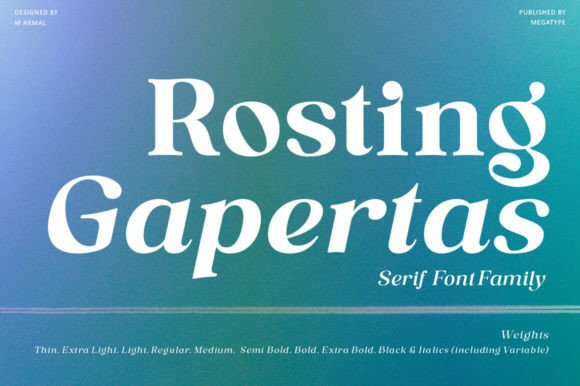
Unleash the Timeless Appeal of Rosting Gapertas: A Serif Masterpiece for Brand Logos
Step into the realm of sophisticated typography with Rosting Gapertas, a captivating serif font family that exudes elegance and strength. Inspired by the golden era of serif typefaces from the 70s and 80s, Rosting Gapertas reimagines the past with a modern twist. Embrace the beauty of nostalgia while embracing the allure of contemporary design.
Crafted by the skilled hands of Megatype, Rosting Gapertas embodies the perfect balance between retro charm and modern appeal. Its soft and graceful curves blend seamlessly with sturdy serifs, creating a visual symphony that commands attention. This font family is not just a collection of letters; it's an exquisite tool that empowers you to convey emotions, tell stories, and forge connections with your audience.
With nine distinct weights ranging from Thin to Black, Rosting Gapertas offers a versatile palette of typographic colors. Each weight carries its own unique personality, allowing you to tailor your designs to perfection. Lighter weights dance gracefully across body text, inviting your readers to immerse themselves in your words. Heavier weights make a bold statement in high-impact titles, leaving an unforgettable impression on your audience.
But Rosting Gapertas doesn't stop at weight variations. It goes the extra mile with an array of ligatures and style alternatives, providing a treasure trove of creative possibilities. These carefully crafted variations add a touch of individuality to your words, making them stand out from the crowd. Whether you're crafting a striking logo, designing eye-catching editorial layouts, or creating stunning packaging designs, Rosting Gapertas is your trusted companion.